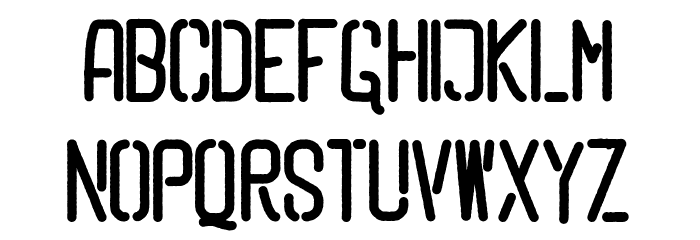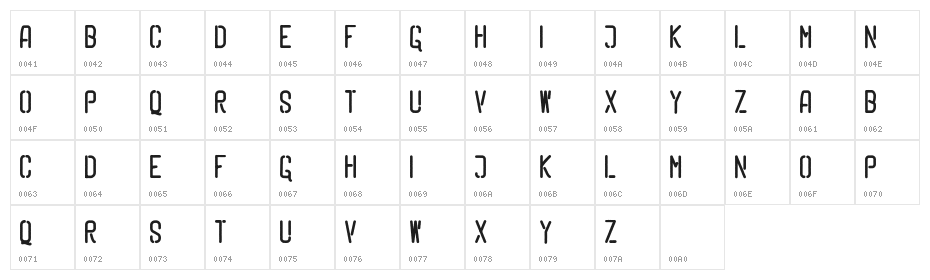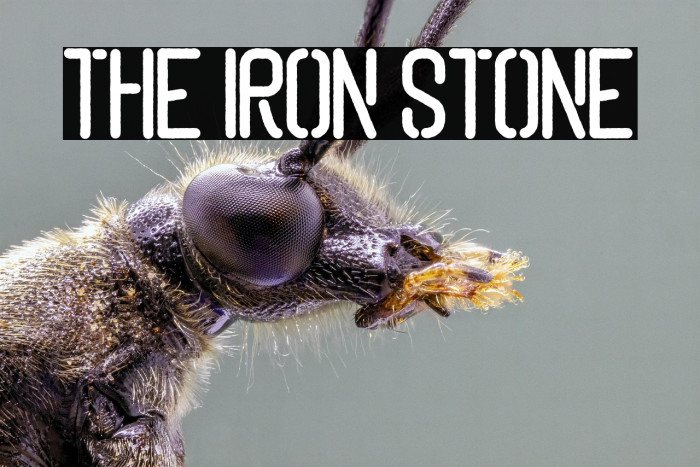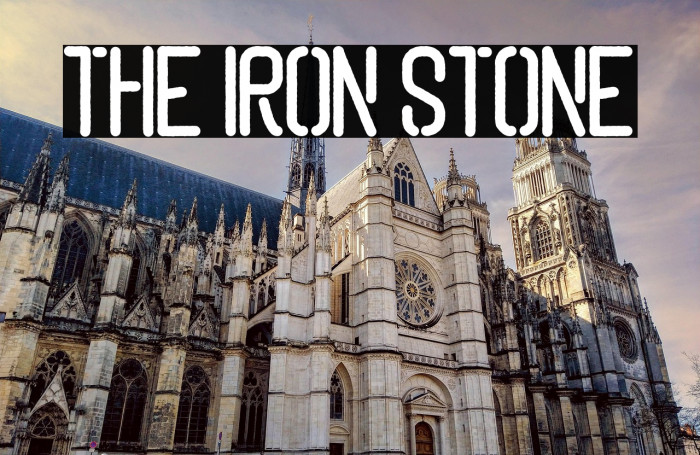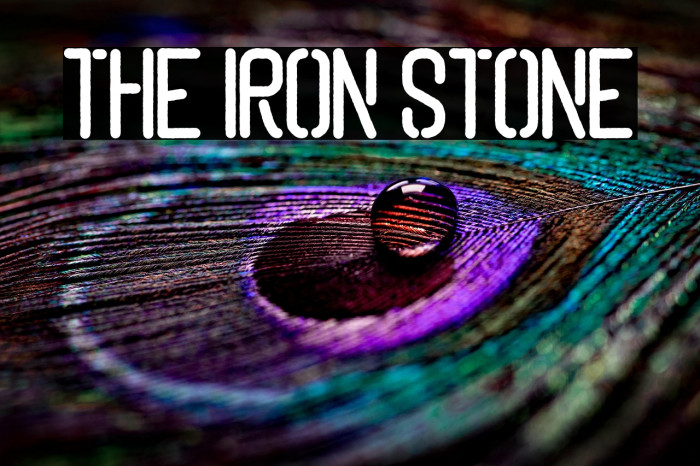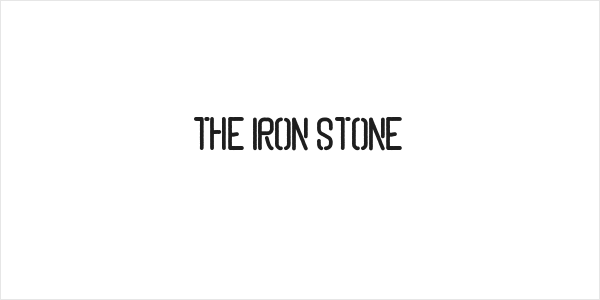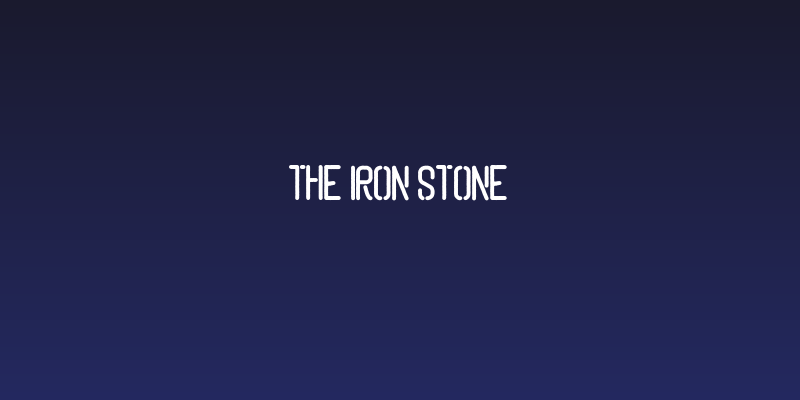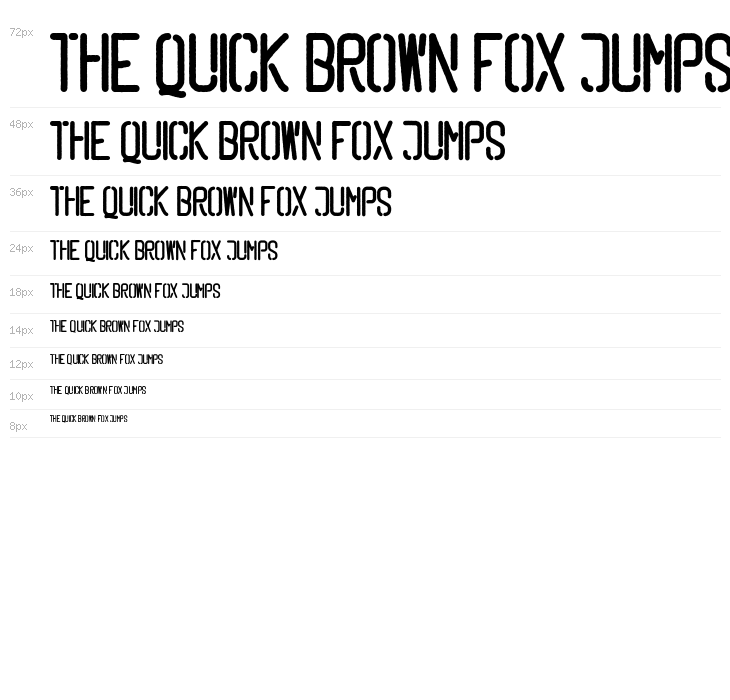
The Iron Stone Font
The Iron Stone Description
This font features a bold and industrial design with a stencil-like appearance. The characters are constructed with thick, uniform strokes and rounded edges, giving it a robust and sturdy look. The uppercase letters are consistent in height, with a geometric structure that emphasizes straight lines and curves. The font's unique style is reminiscent of industrial signage or machinery labels, making it stand out with its distinctive, mechanical aesthetic. The spacing between characters is tight, enhancing its compact and cohesive appearance. This font is ideal for projects that require a strong, impactful visual presence.
| Overall Style | Industrial, Modern |
| Use Case | Headlines, Logos, Signage |
| Proposed Projects | Ideal for industrial-themed designs, signage, branding, and posters. |